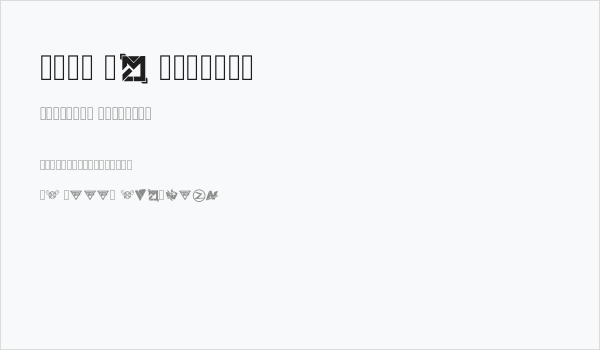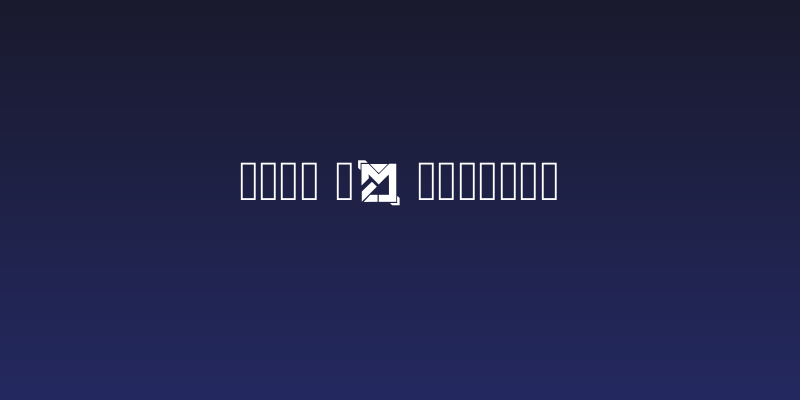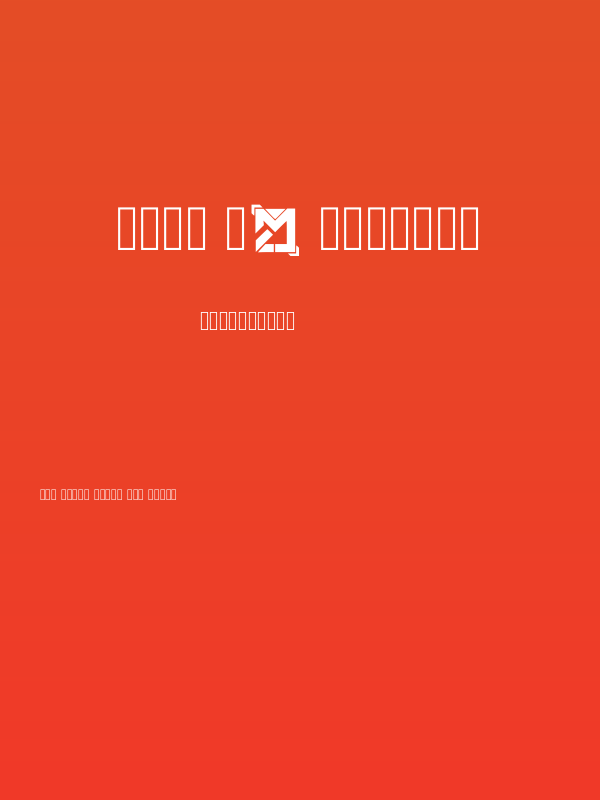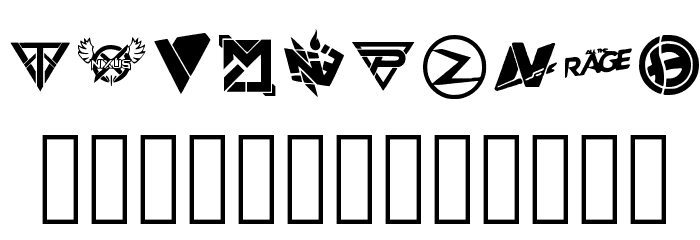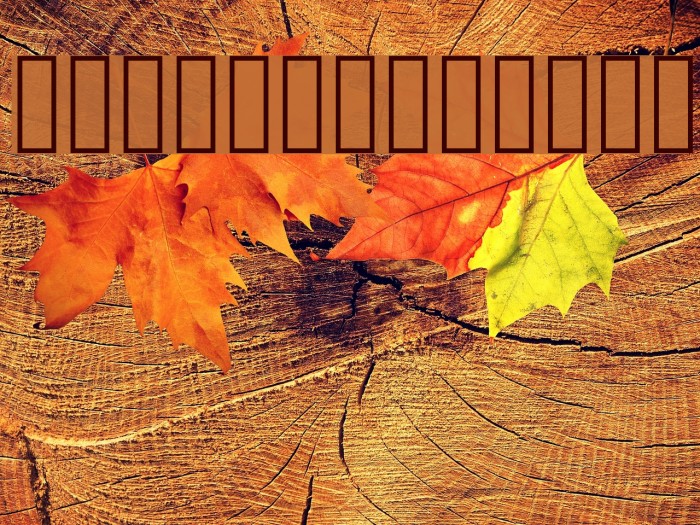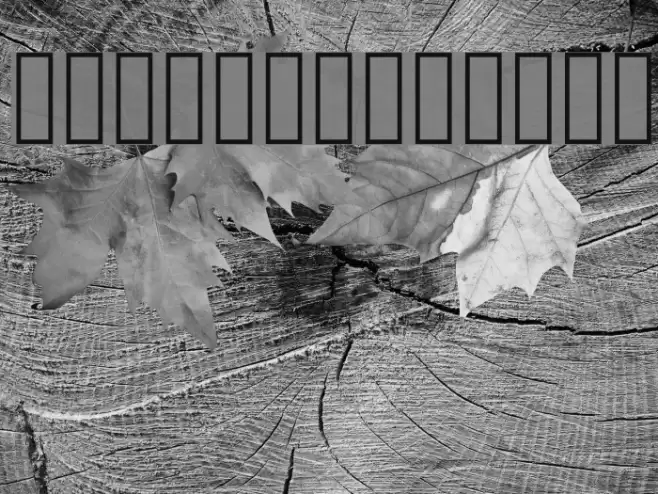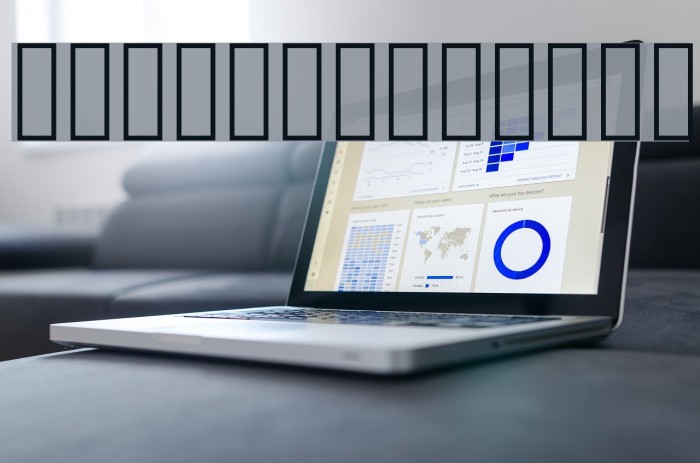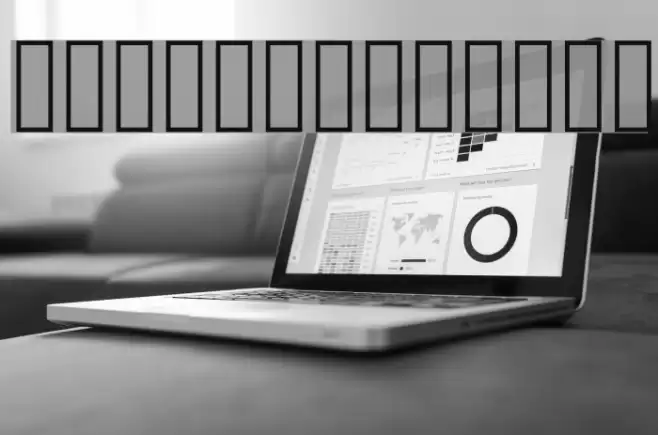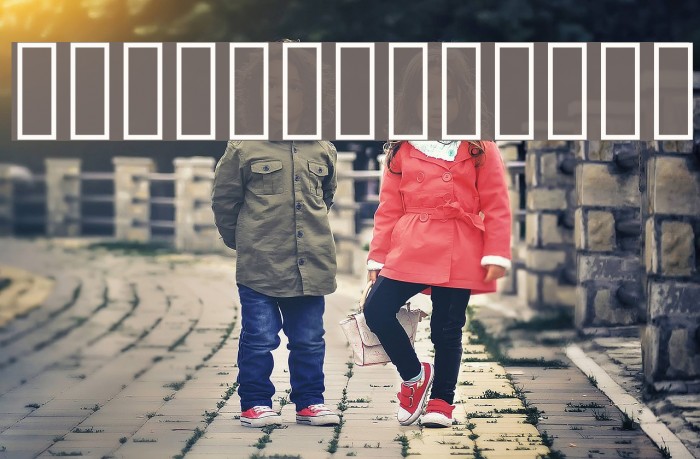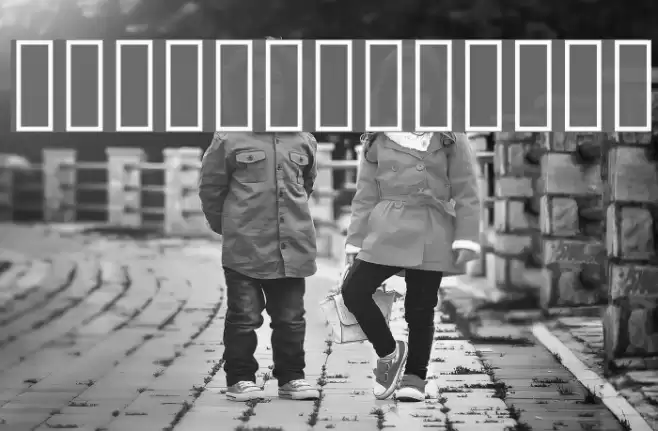
Rlfs V3 Regular Font
Rlfs V3 Regular Description
This is not a valid font. The image appears to contain logos or symbols rather than a complete set of alphanumeric characters and standard punctuation marks typically found in a font set. Each symbol is unique and stylized, suggesting they are designed for branding or decorative purposes rather than for use as a typeface.
| Use Case | Logos, Branding |
| Proposed Projects | These symbols could be used for branding, logo design, or decorative elements in graphic design projects. |